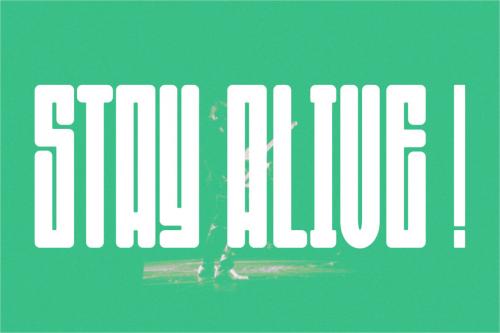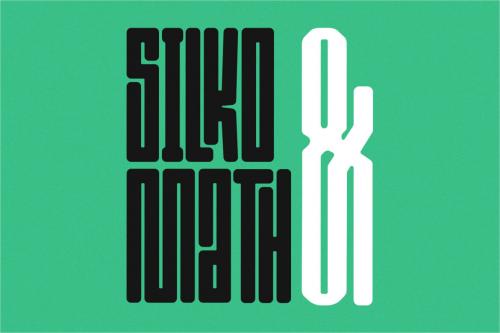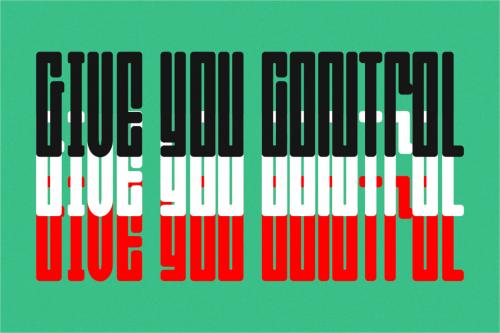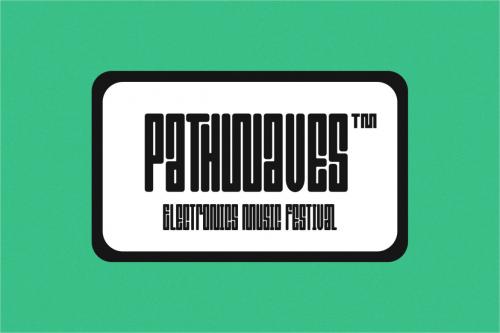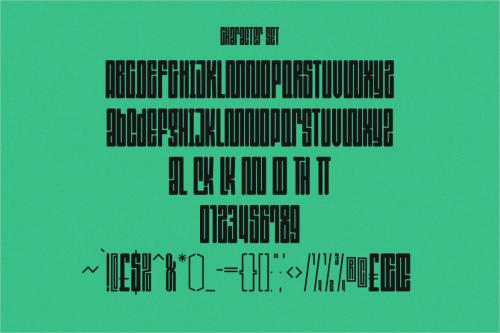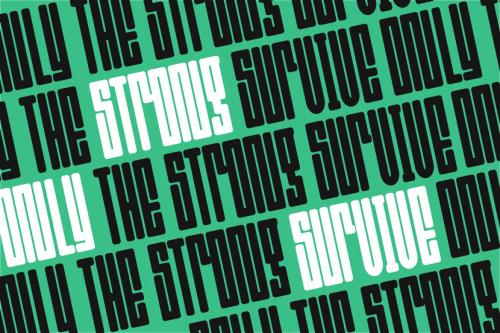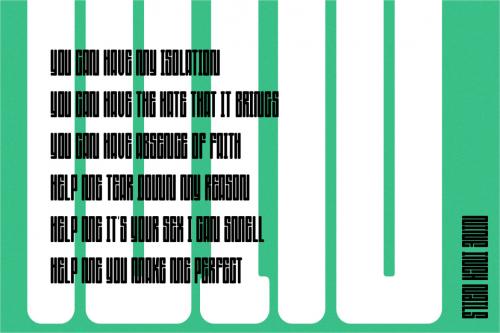
Konnekta is a condensed decorative display font. With bold consist stroke, fun character with a bit of ligatures and alternates. To give you an extra creative work. Konnekta font support multilingual more than 100+ language. This font is good for logo design, Social media, Movie Titles, Books Titles, a short text even a long text letter and good for your secondary text font with sans or serif. Make a stunning work with Konnekta font.